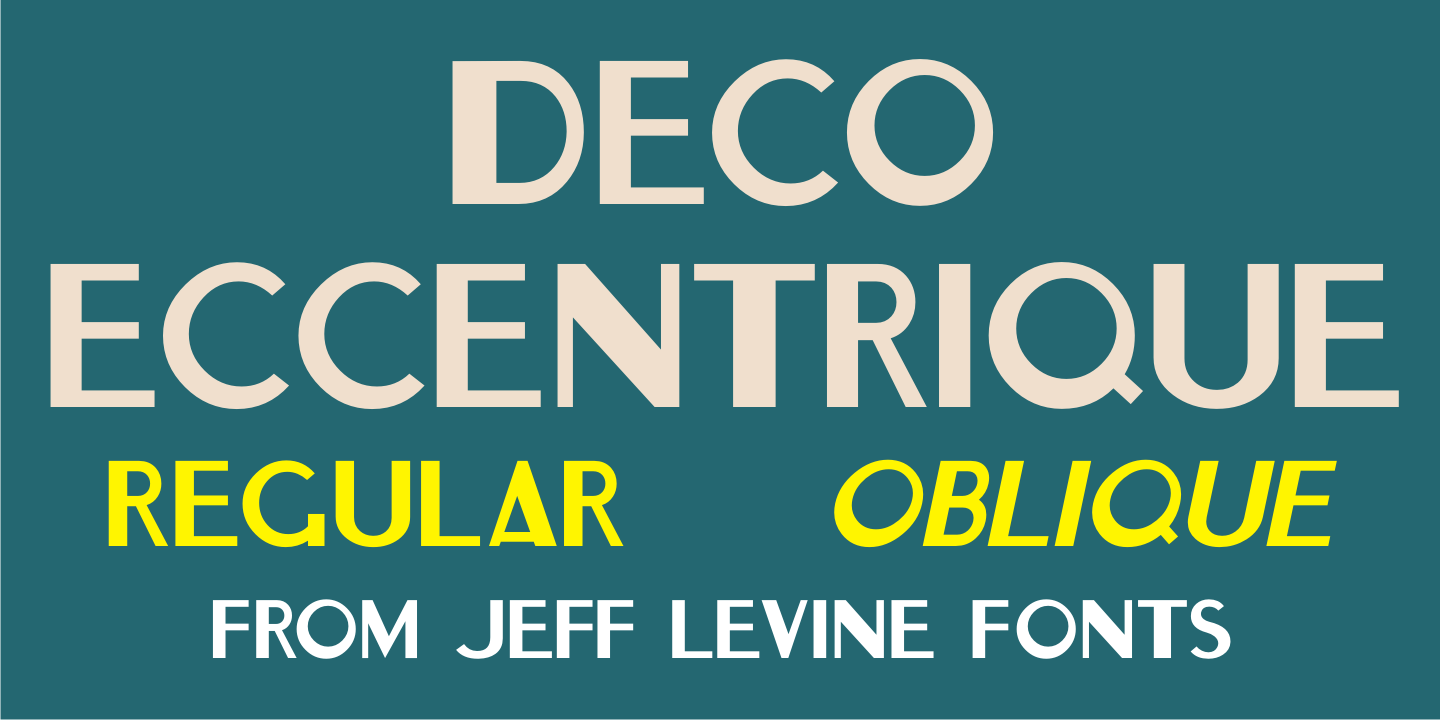
Deco Eccentrique JNL is a display sans and art deco font family. This typeface has two styles and was published by Jeff Levine Fonts.
The inspiration for Deco Eccentrique JNL was initially hand drawn contoured lettering from a mid-1920s piece of sheet music; the style of the letters showing influences of the upcoming Art Deco movement. This was made into a digital font entitled Poster Contoured JNL.
Once all of the excess parts of the previous design were stripped away to only the inner letters, the pre-Art Deco influences remained along with characters of varying stroke widths and shapes.
This non-conformist type face is available in both regular and oblique versions.